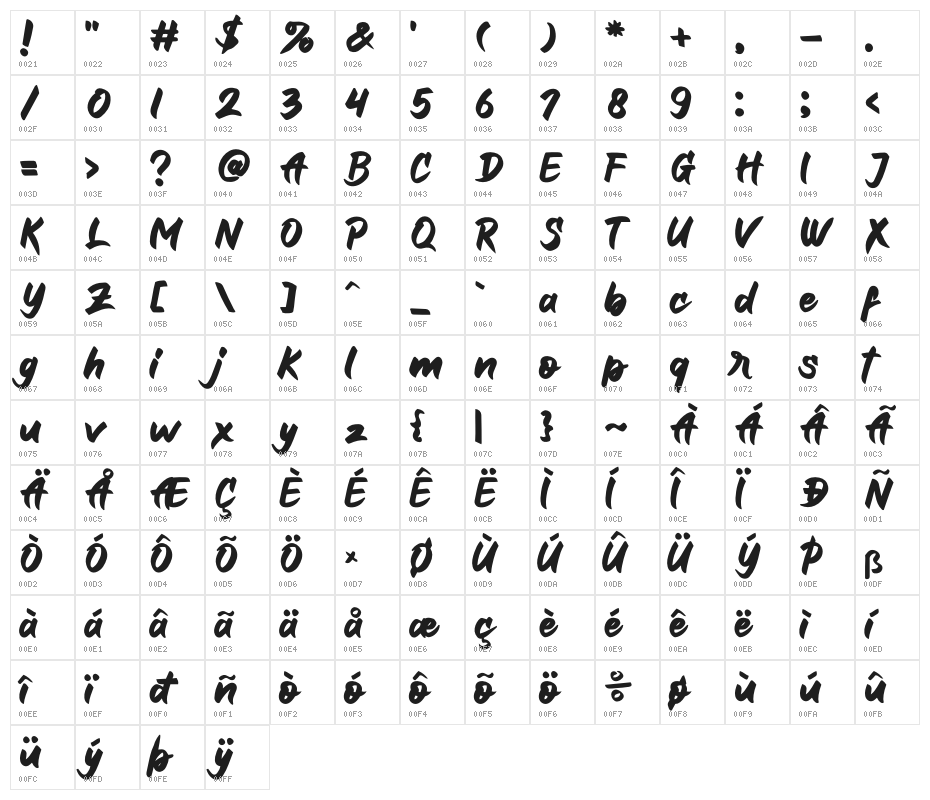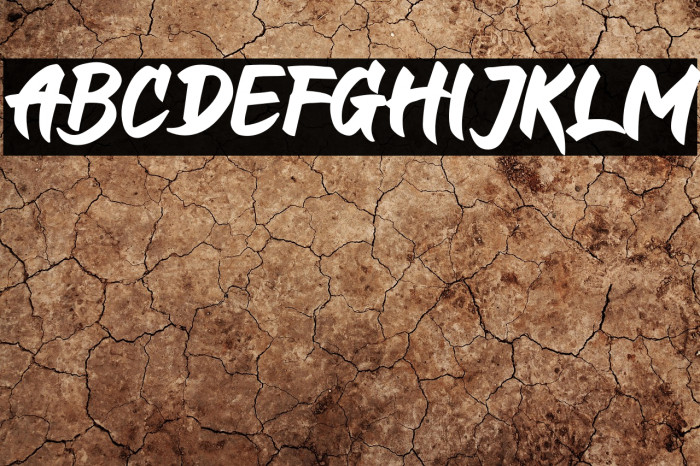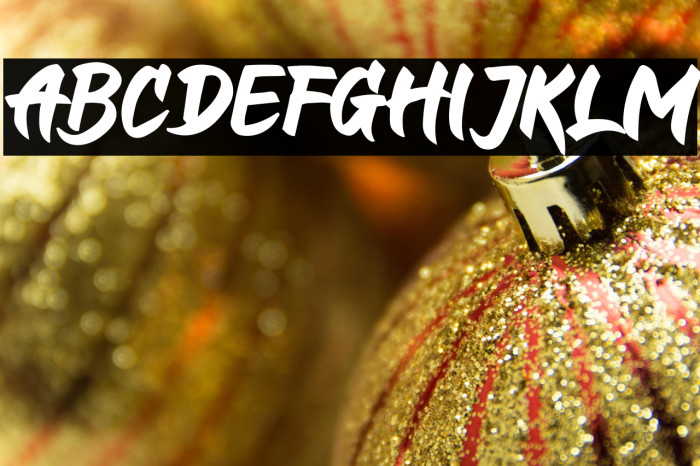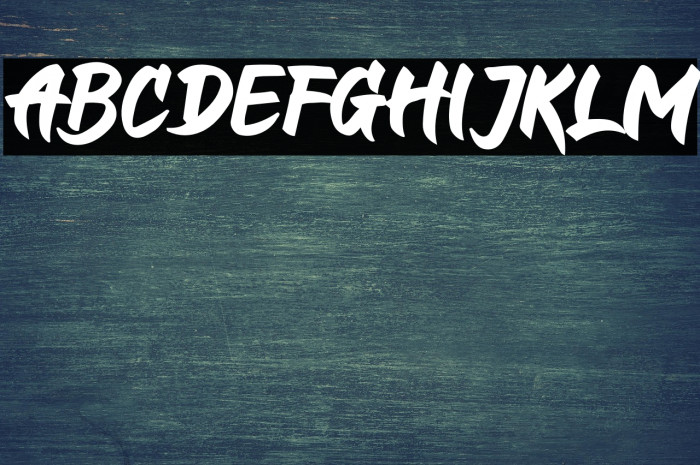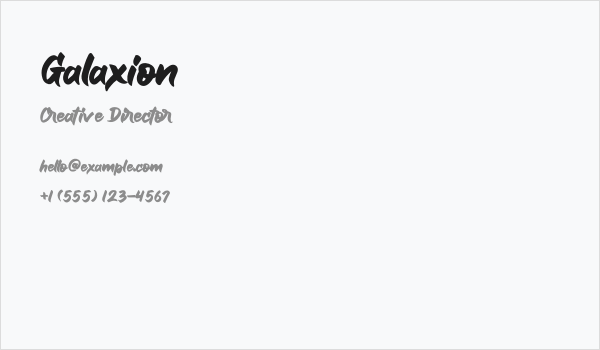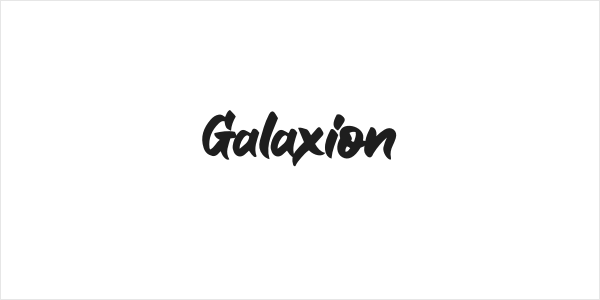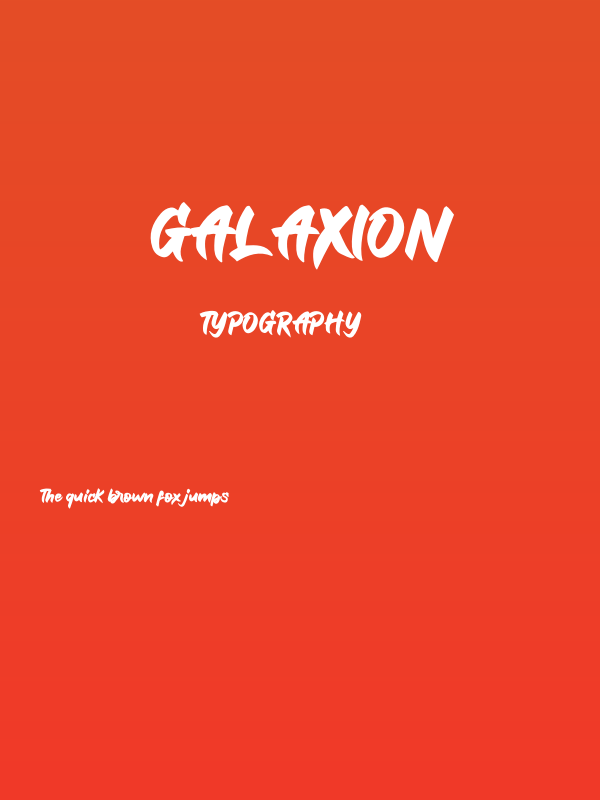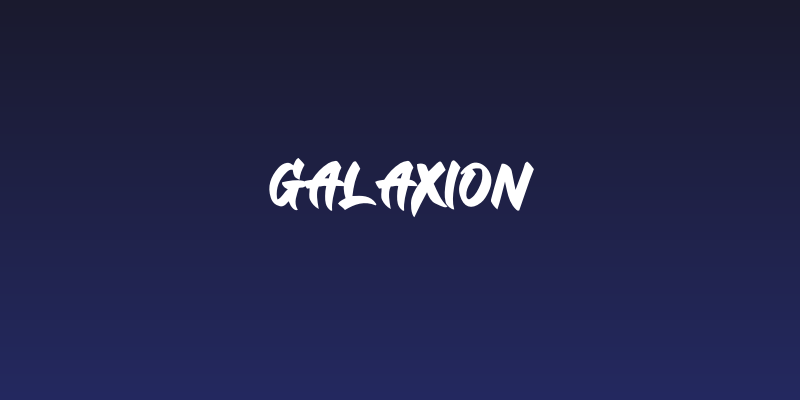
Galaxion Font
Galaxion Description
This font exhibits a bold and dynamic script style, characterized by its thick, flowing strokes and a sense of movement. The letters are connected in a way that mimics natural handwriting, yet they maintain a consistent and legible form. The uppercase letters are particularly striking, with exaggerated curves and a sense of flair. The lowercase letters complement this with a slightly more restrained but equally expressive design. Numbers and special characters follow the same stylistic cues, ensuring a cohesive appearance across all glyphs. The overall impression is one of energy and creativity, making it suitable for projects that require a personal touch.